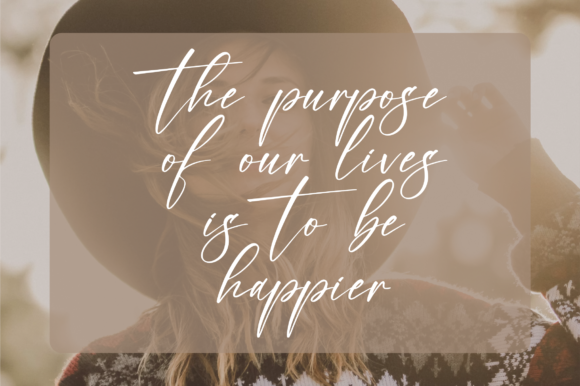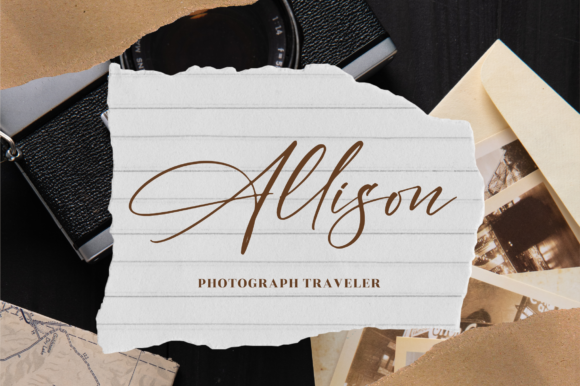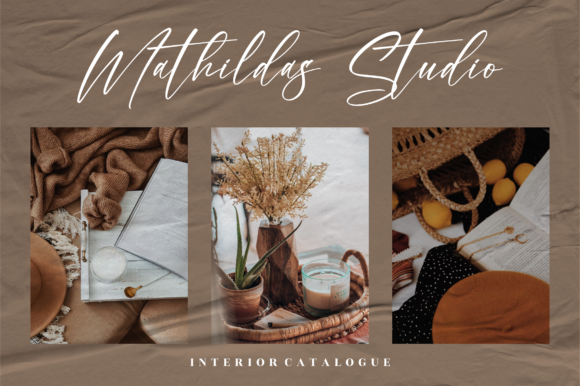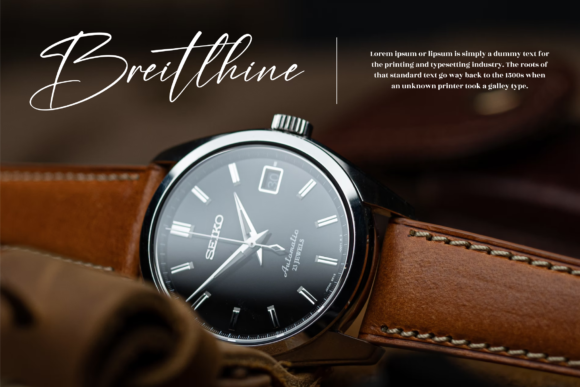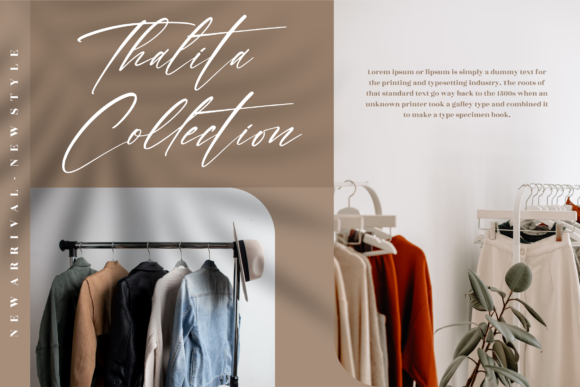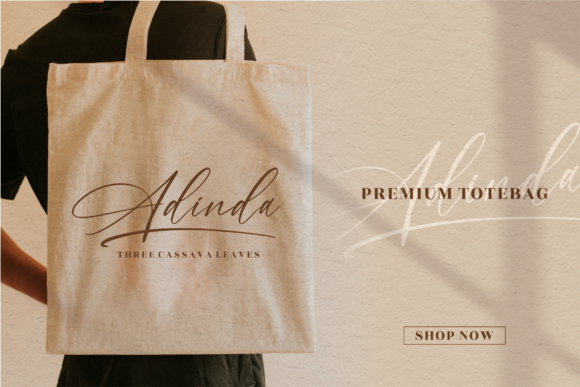
Discover the Magic of Aillisha Font
Have you ever sat at your desk, staring blankly at a blank sheet of paper, searching for the perfect font to bring your creative vision to life? For many designers, this moment of inspiration is a crucial part of the process – and the right font can make all the difference.
Enter the Aillisha Font, a stunning script font that is sure to capture your heart with its elegant, flowing characters. Whether you’re crafting a beautiful wedding invitation, designing a birthday card for a loved one, or building a personal brand, Aillisha Font is the perfect companion to bring your ideas to life.
As a valuable addition to any designer’s toolkit, Aillisha Font offers a unique and natural feel that sets it apart from more traditional fonts. Its versatility makes it an ideal choice for a wide range of creative projects, from elegant stationery to playful graphics.
Aillisha Font Key Features
- Unique Characteristics: The font features a unique blend of modern and elegant script styles, with intricate flourishes and subtle texture.
- Font Style: The font comes in three different styles: Regular, Italic, and Bold, offering versatility for various design applications.
Aillisha Font Review
Aillisha Font is a beautiful, elegant script font that I’ve had the pleasure of working with. Here are my honest thoughts on its strengths and weaknesses.
- Elegant and Refined: Aillisha Font has a sophisticated, high-end feel that’s perfect for luxury brands and upscale designs.
- Good Legibility: Despite its script nature, Aillisha Font is surprisingly legible, making it a great choice for body text.
- Customization Options: The font offers a range of OpenType features, allowing for easy customization and styling.
- Not Suitable for Small Text: Aillisha Font’s elegant script style can make small text difficult to read, so it’s best used for larger headings and titles.
- Limited Character Set: The font’s character set is somewhat limited, which may not be ideal for languages that require a wide range of characters.
- Not Ideal for Casual Use: Aillisha Font’s refined style may not be the best fit for casual, everyday use, such as social media or blog posts.
Overall, I think Aillisha Font is a beautiful and elegant script font that’s perfect for high-end designs and luxury brands. While it has some limitations, it’s still a great choice for designers looking to add a touch of sophistication to their work.
Aillisha Font is ideal for:
- Magazine and newspaper articles
- Book covers and book titles